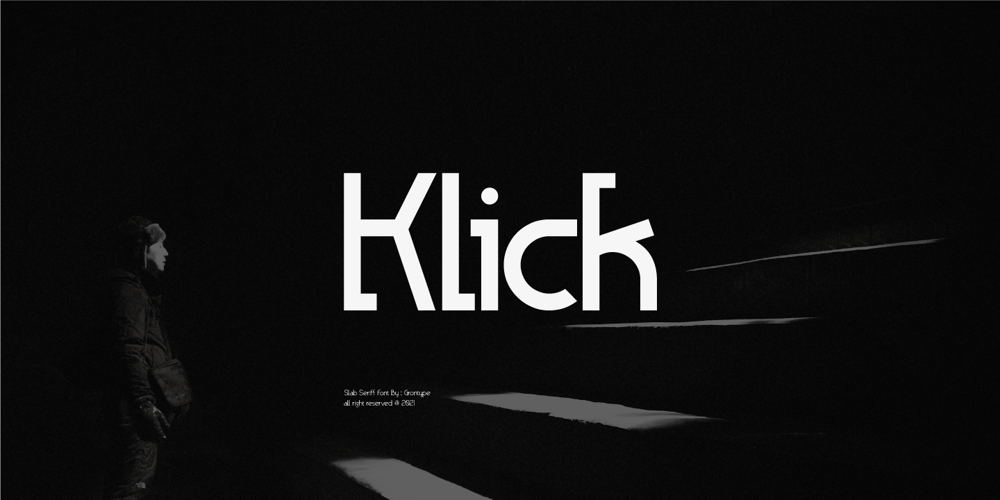
Klick Font Family was designed by Jarnawi Saja and published by Grontype. Klick contains 3 styles and family package options. Klick is a Slab Serif Font family. The style are light, outline and Blurred. This font is elegant and it based on the combining a variety of styles. Suitable for Logo, greeting cards, quotes, posters, branding, name card, stationary, design title, blog header, art quote, typographyFeatures : Uppercase and lowercase Numeral and Punctuation Please contact us if you have any questions. Enjoy the font and thanks for supporting us.Regards, Grontype.